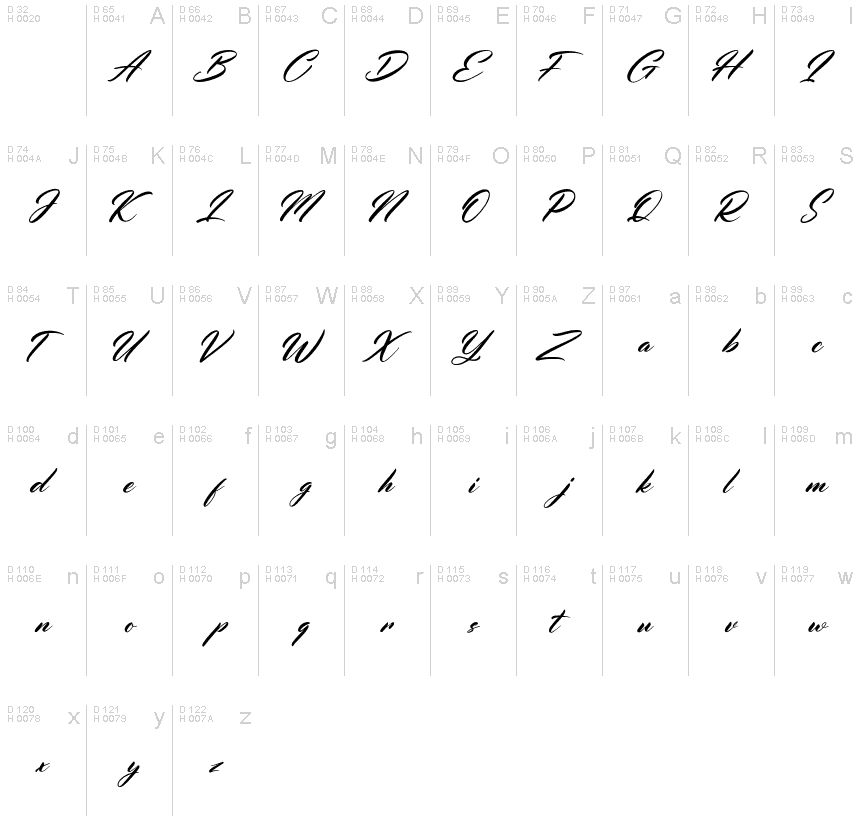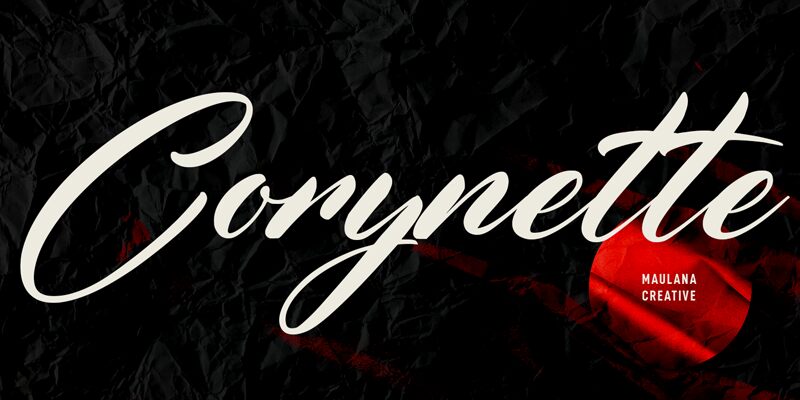
Corynette Free Regular
Corynette, the exquisite semi-light calligraphy font by Maulana Creative, is a captivating choice for projects that demand elegance and sophistication. With its graceful strokes and fluid curves, this font effortlessly adds a touch of refinement to wedding invitations, luxury branding, and high-end fashion magazines. Perfect for creating romantic pieces or conveying a sense of classiness, Corynette enchants viewers with its delicate yet confident presence. Embrace the charm of this typeface to elevate your designs and leave a lasting impression on your audience.